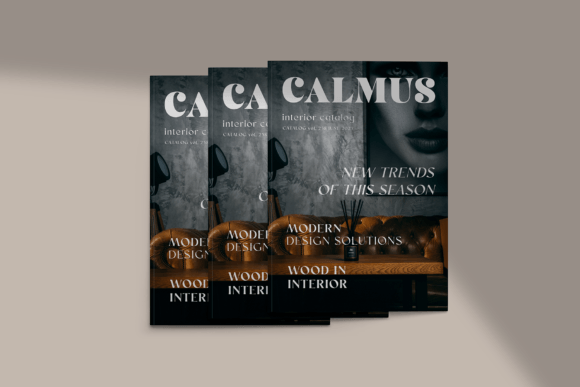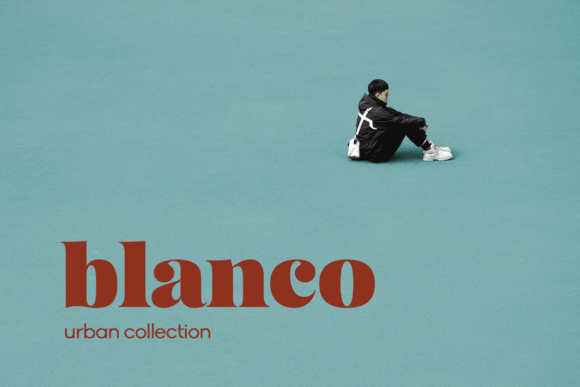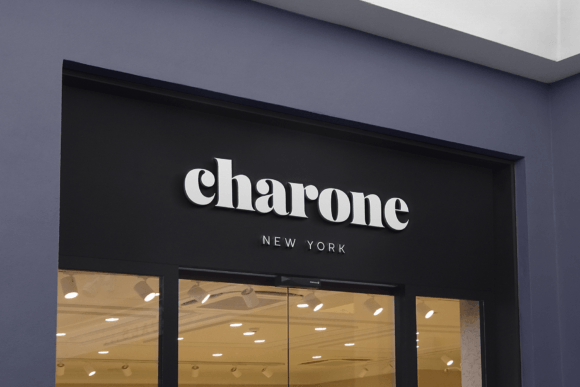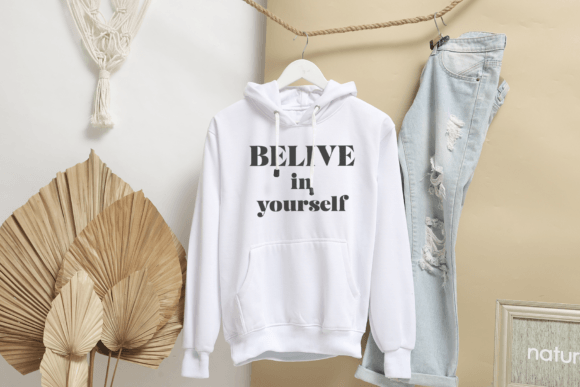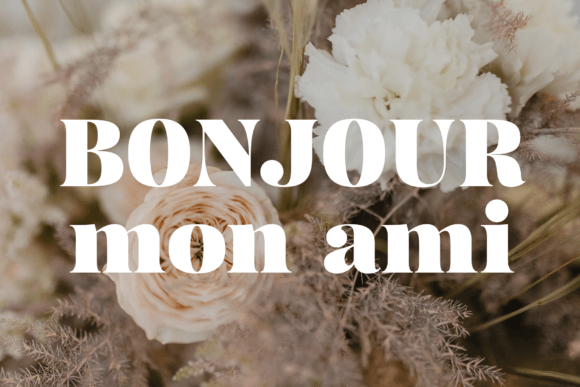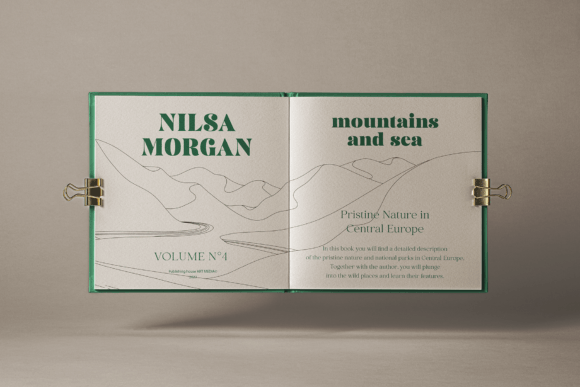
Introducing Boldy Font: Elevate Your Designs with a Stunning Display Serif
In the world of typography, a font can make or break a design. For designers and crafters looking to elevate their projects, Boldy Font is an exceptional choice. This stunning display serif font is designed to make a statement, offering a range of features that set it apart from other fonts. In this article, we’ll explore the key characteristics of Boldy Font and how it can enhance your designs.
A Font with Versatility: Boldy Font Features
Boldy Font is more than just a beautiful display serif font; it’s a versatile tool that can be used across a wide range of design projects. One of its standout features is the inclusion of alternates for lowercase letters, allowing you to add a touch of uniqueness to your text. Additionally, the font comes with ligatures for lowercase letters, which can add a sophisticated flair to your designs.
Whether you’re working on a branding project, creating a website, or designing marketing materials, Boldy Font is up to the task. Its multi-purpose nature means it can adapt to various design needs, ensuring your project looks stylish and modern.
Capture a Huge Range of Design Possibilities
Boldy Font is designed to capture a huge range of design possibilities, making it an ideal choice for designers who want to push the boundaries of creativity. With Boldy, you can experiment with different design elements, from bold headlines to elegant body text. The font’s versatility means you can use it for:
- Branding and logos: Create a lasting impression with a bold, eye-catching font that reflects your brand’s personality.
- Web design: Use Boldy Font to create stunning website headers, titles, and section dividers that draw users in.
- Print design: Elevate your print materials, such as brochures, posters, and business cards, with a sophisticated display serif font.
- Marketing materials: Make your marketing materials stand out with Boldy Font’s unique character and style.
Why Choose Boldy Font?
So, why should you choose Boldy Font for your next design project? Here are just a few reasons:
- Unique character: Boldy Font has a distinct personality that sets it apart from other display serif fonts.
- Versatility: Use Boldy Font across a range of design projects, from branding to web design and print materials.
- Elegance: The font’s elegant lines and sophisticated features make it perfect for designs that require a touch of refinement.
- Modern style: Boldy Font is designed to look stylish and modern, ensuring your designs stay up-to-date.
Tips for Using Boldy Font
To get the most out of Boldy Font, here are some tips to keep in mind:
- Experiment with alternates: Take advantage of the font’s alternate characters to add visual interest to your designs.
- Pair with complementary fonts: Combine Boldy Font with complementary fonts to create a harmonious design.
- Play with sizes: Use Boldy Font in different sizes to create visual hierarchy and emphasis in your designs.
In conclusion, Boldy Font is an exceptional display serif font that offers a range of features and design possibilities. Its versatility, elegance, and modern style make it an ideal choice for designers and crafters looking to elevate their projects. Whether you’re working on branding, web design, or print materials, Boldy Font is sure to make a lasting impression.